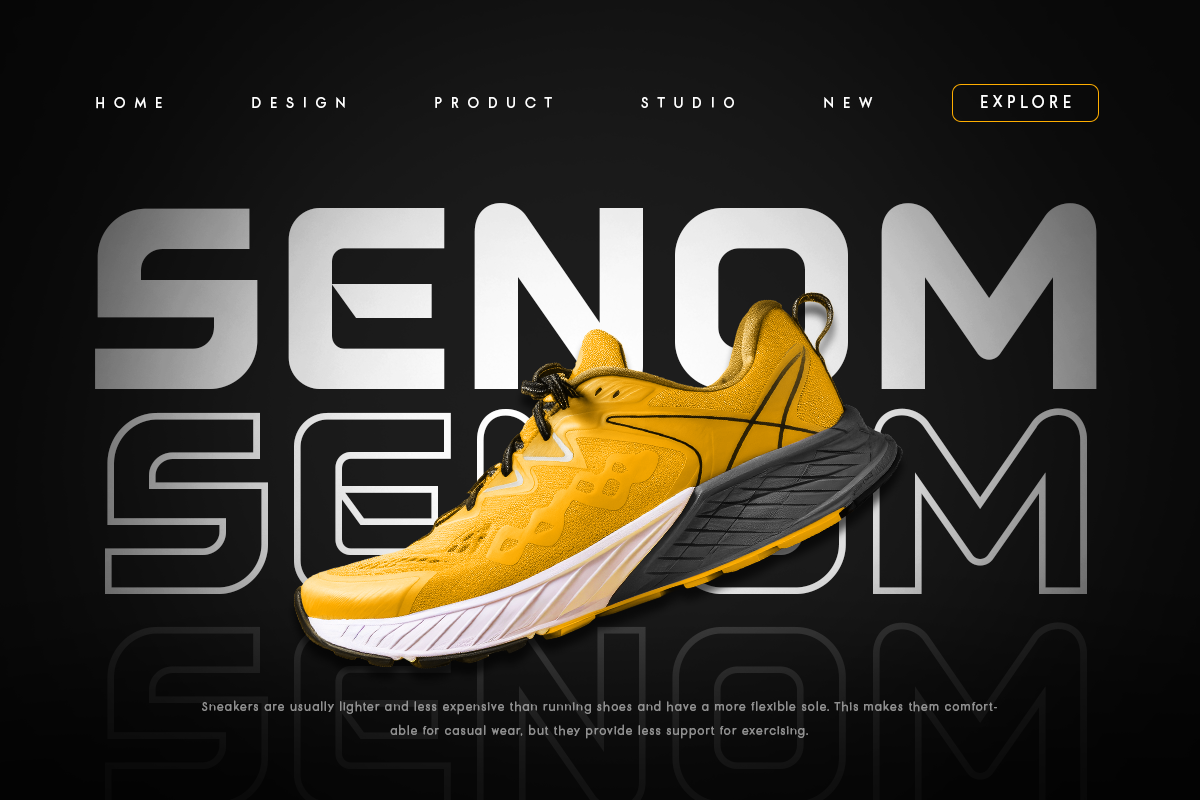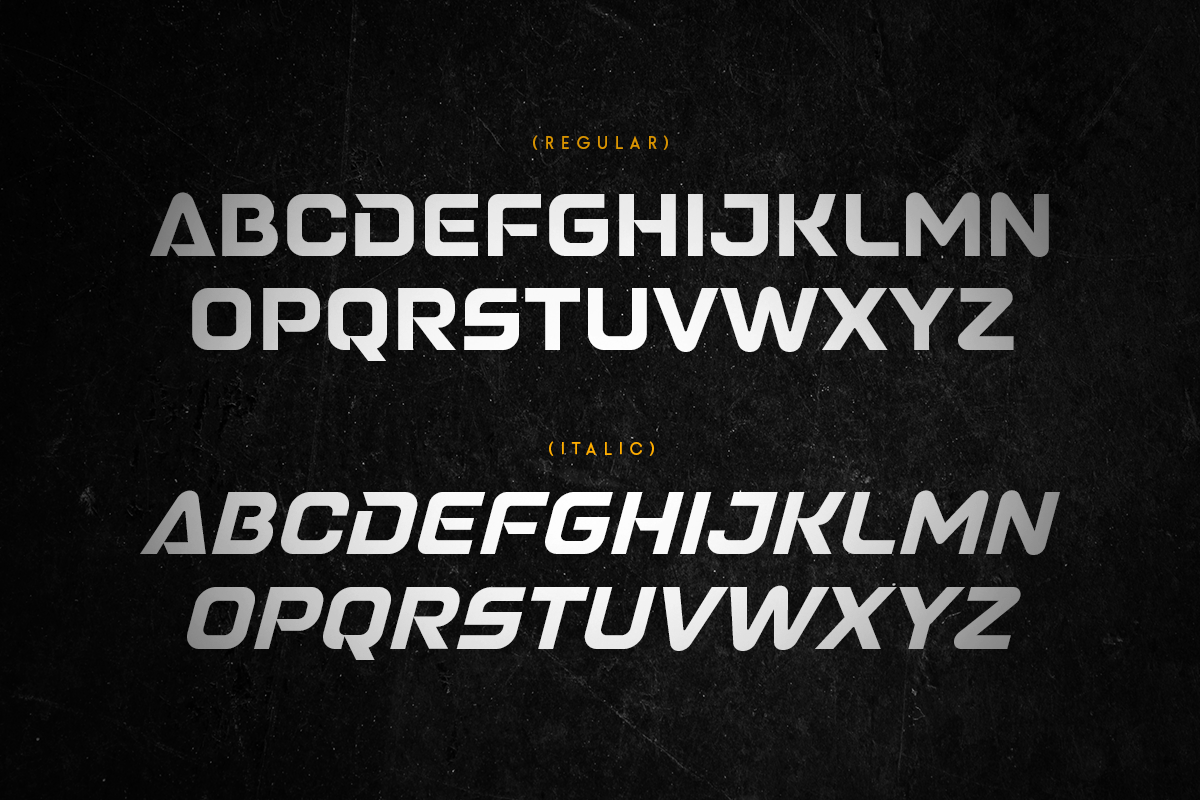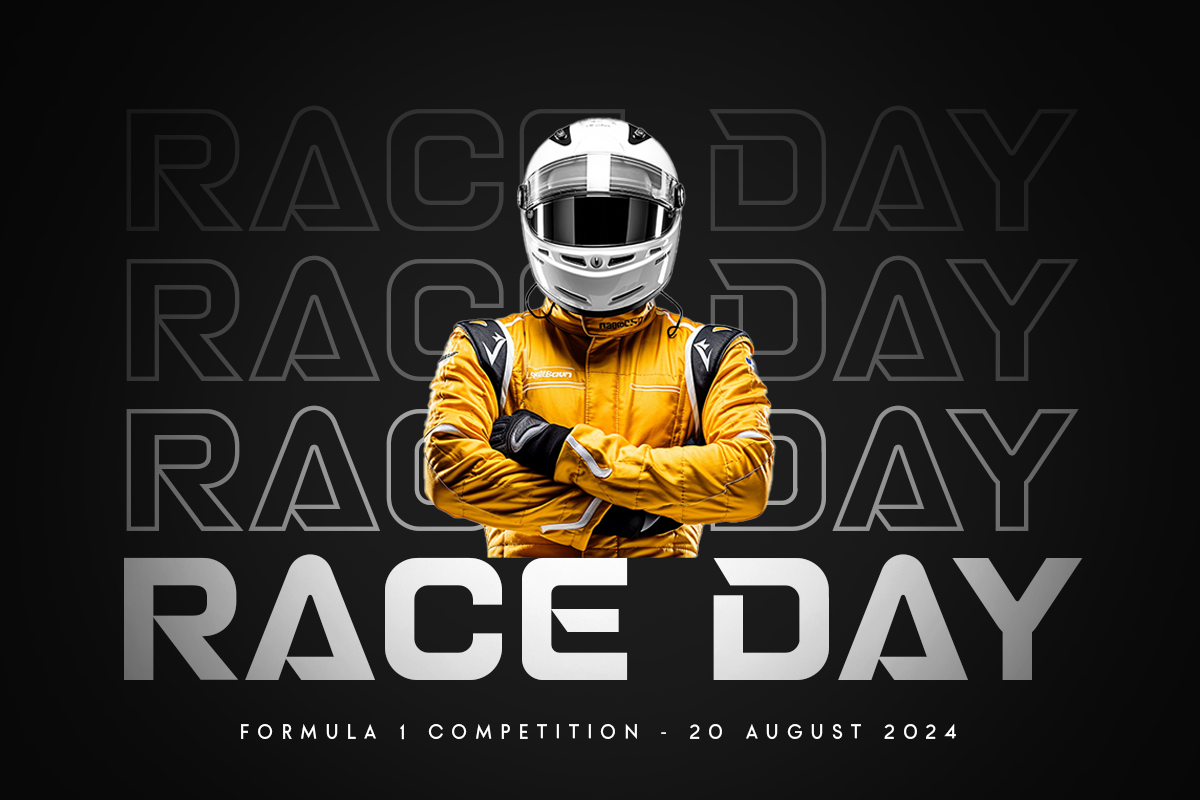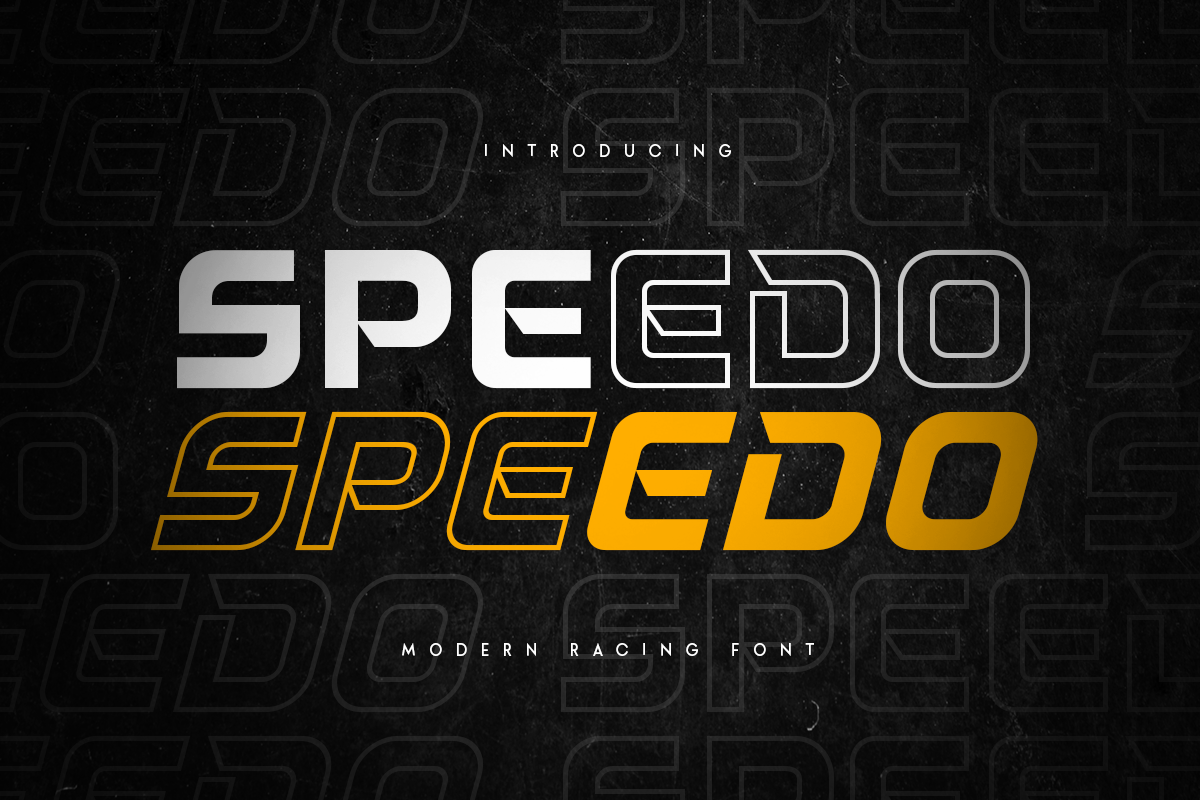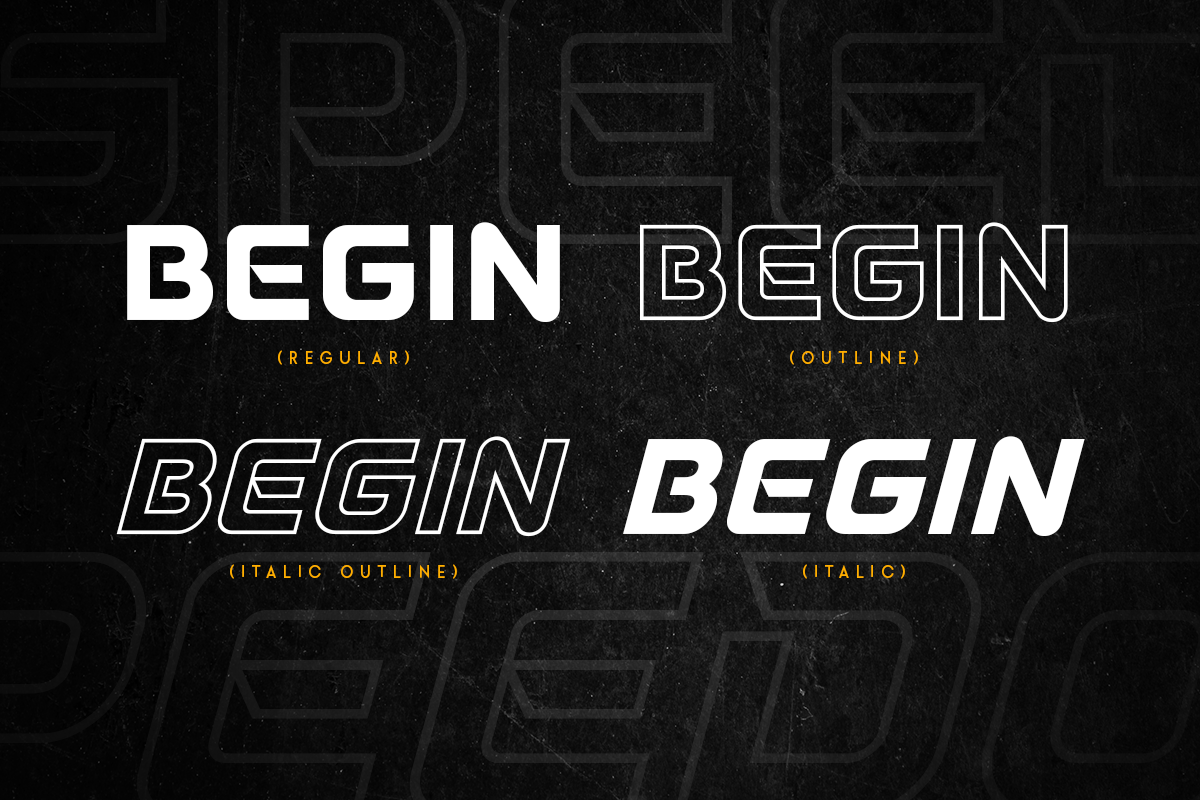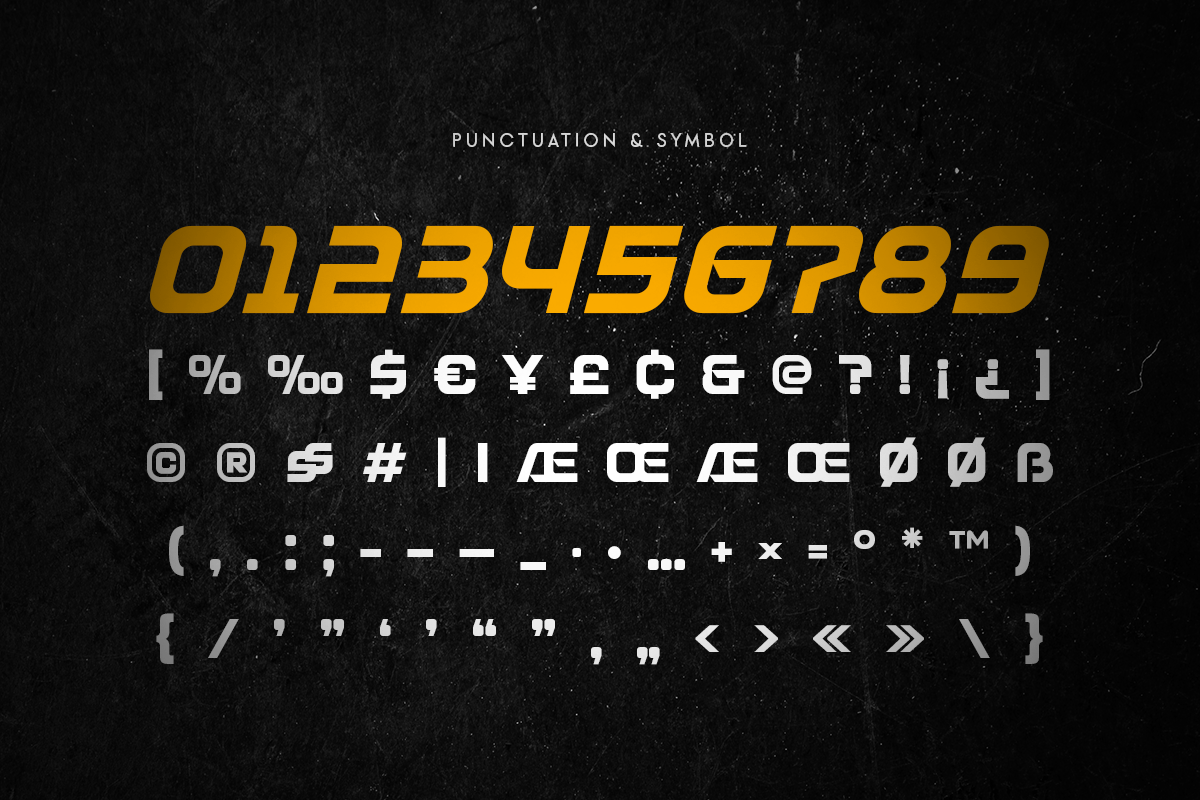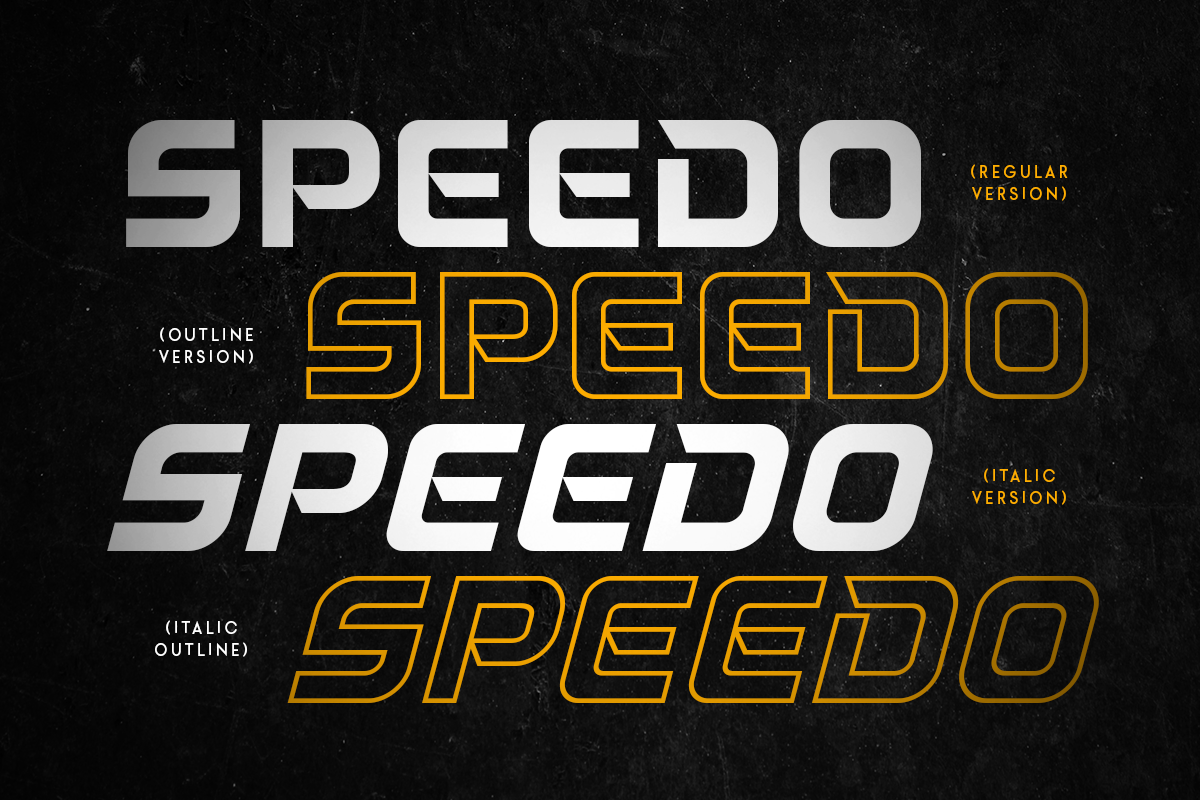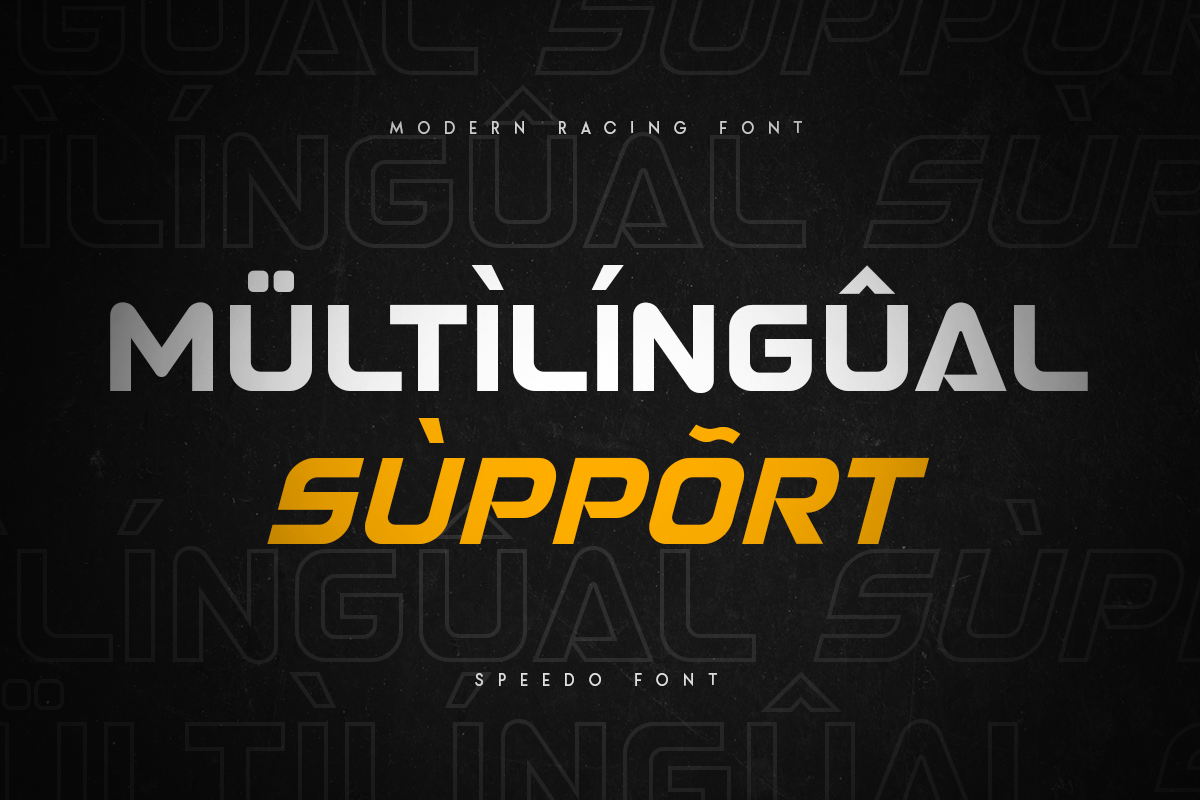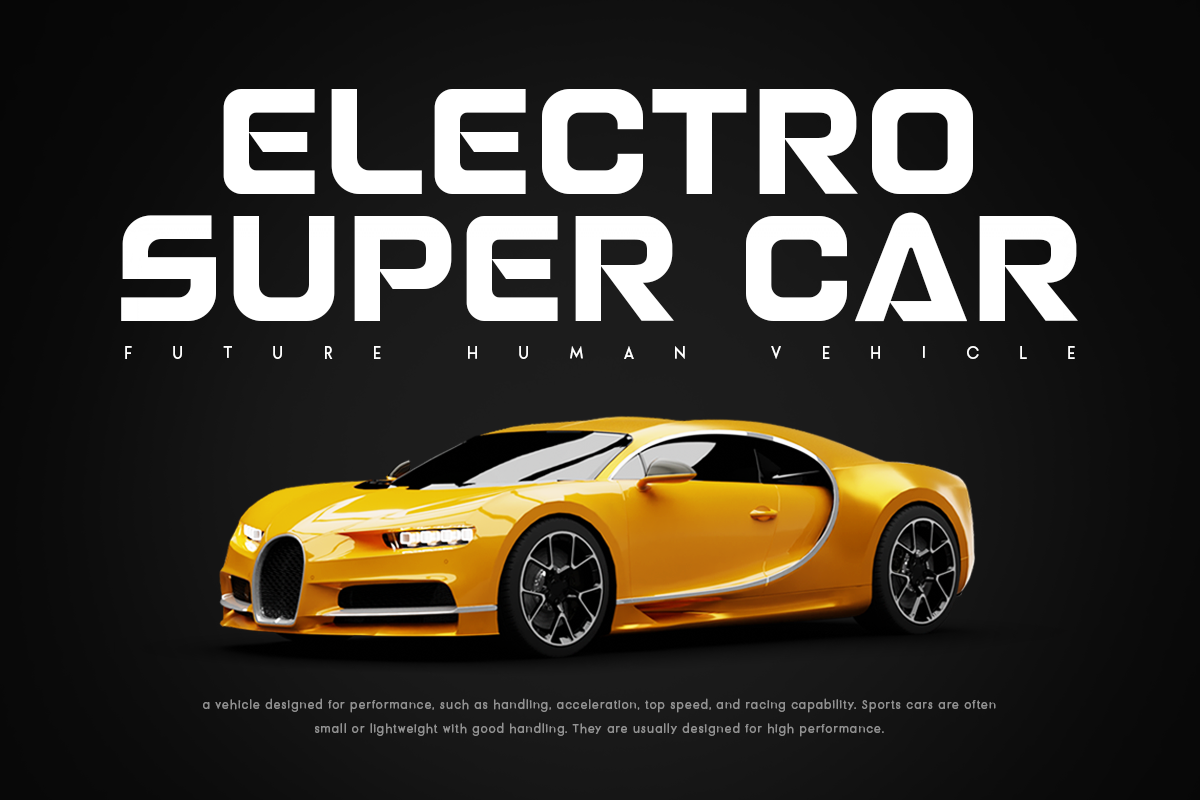
Speedo - Racing Technology Font
Introducing Speedo, the ultimate font for all your racing and film needs. Speedo combines the thrill of high-speed racing with the excitement of blockbuster movies, creating a dynamic and bold typeface perfect for any project.
Speedo Font Features:
- Futuristic Design: Sleek and modern, ideal for race car themes and sci-fi aesthetics.
- Versatile Usage: Perfect for racing events, car designs, sports branding, film titles, and dynamic trailers.
- Creative Alternatives: Offers unique characters and styles to make your designs stand out.
- Inspirational Previews: Includes sample designs to spark your creativity.
Rev up your projects with Speedo and leave a lasting impression with its bold, fast-paced style. Perfect for headlines, posters, branding, and digital art, Speedo will make your work stand out in the fast lane.
Get ready to rock your designs with Speedo!